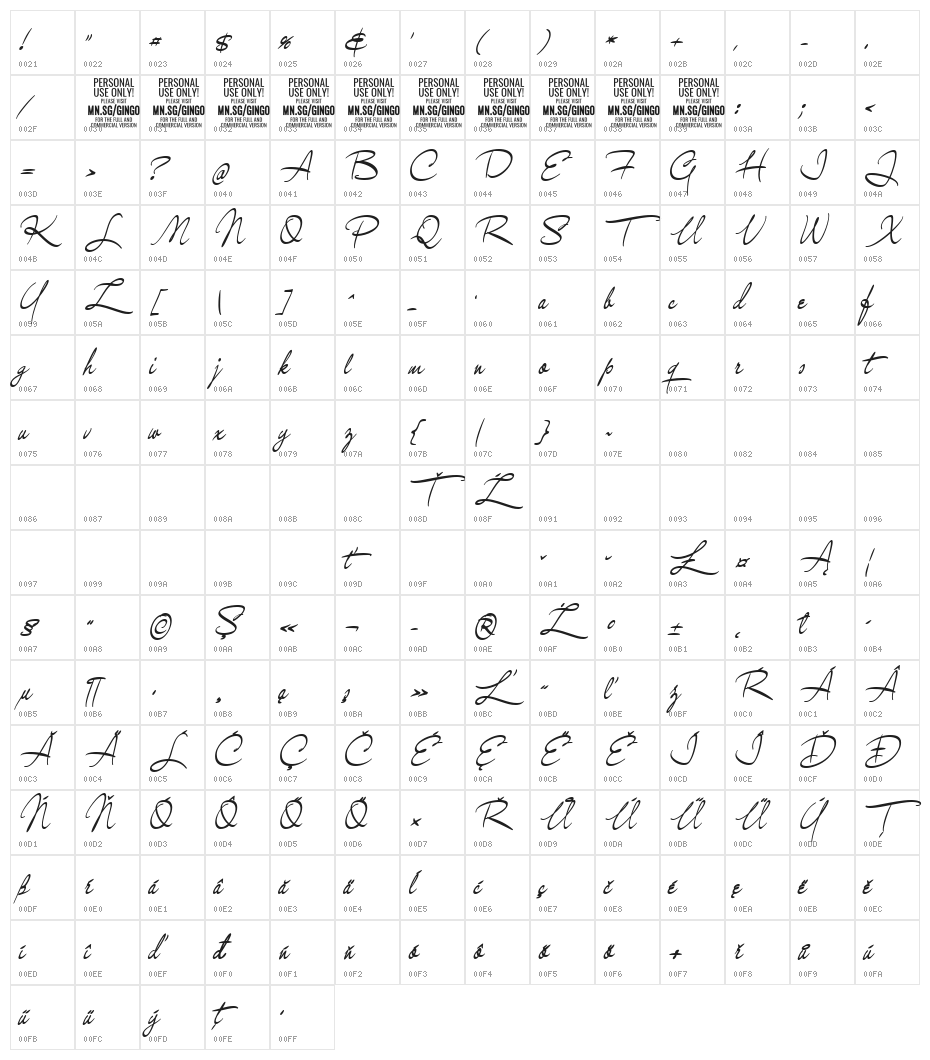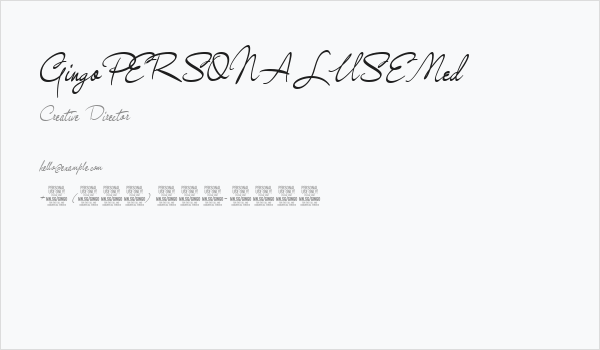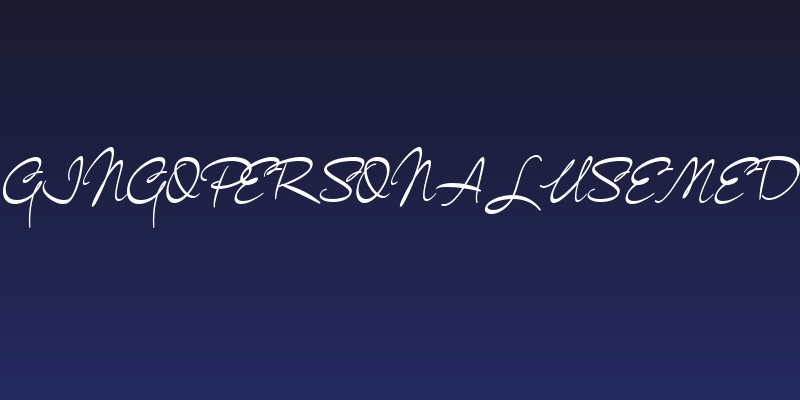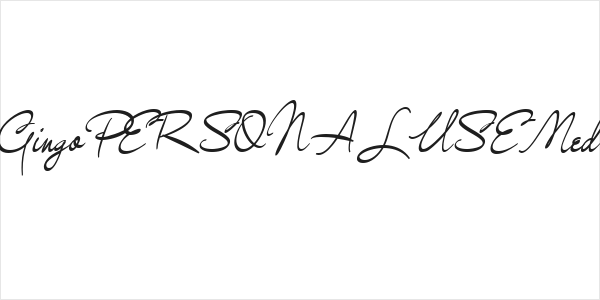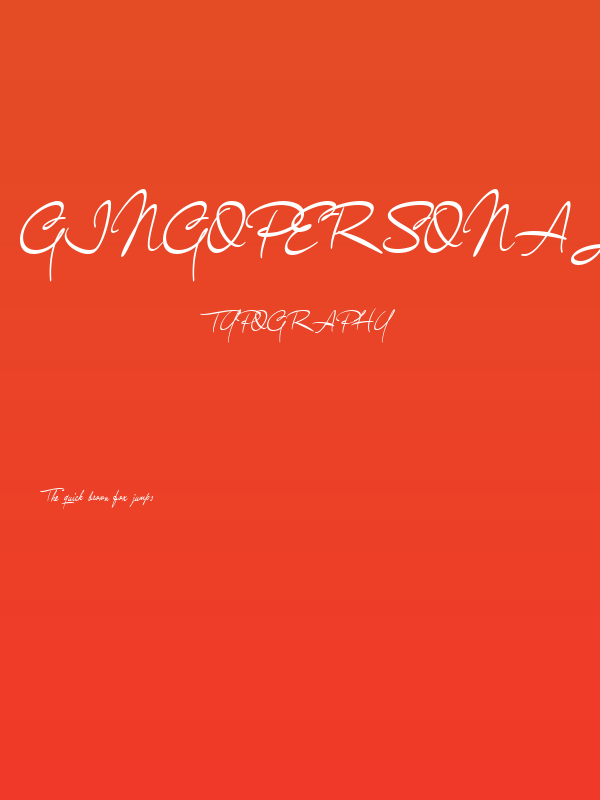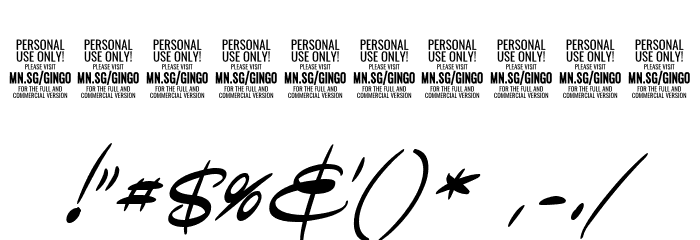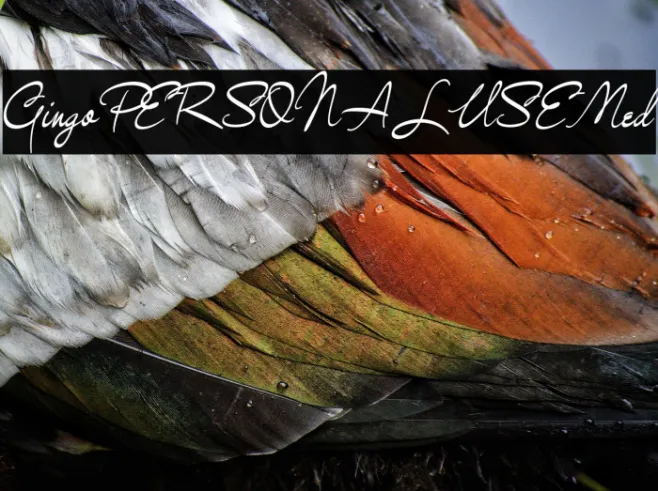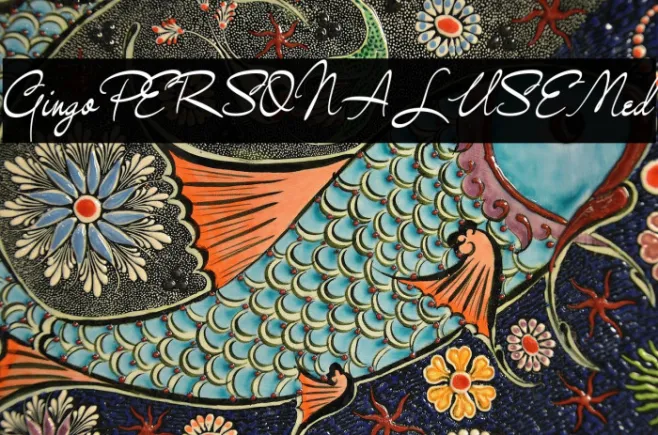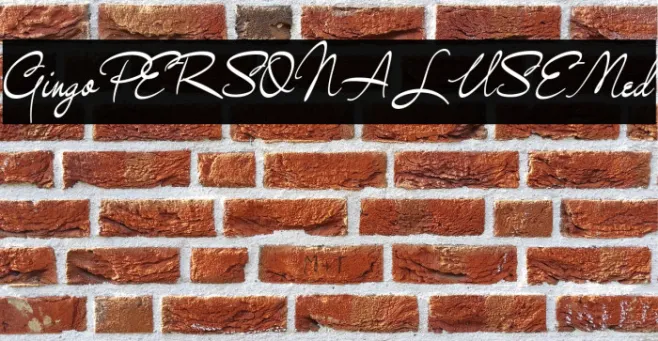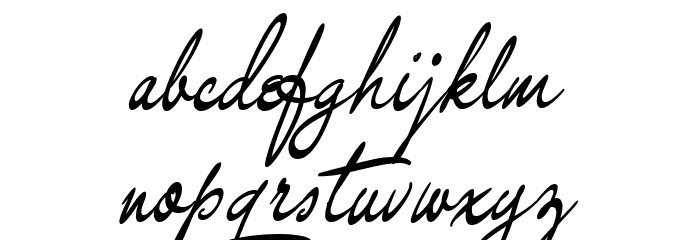
GingoPERSONALUSEMed Font
GingoPERSONALUSEMed Description
This font exhibits a flowing, cursive style that mimics elegant handwriting. The uppercase letters are tall and slightly slanted, with graceful loops and curves that give a sense of fluidity and motion. The lowercase letters maintain this fluidity, with some letters featuring distinctive flourishes that enhance the handwritten feel. The characters are connected, creating a seamless and continuous line of text. The font includes a variety of special characters, maintaining the same cursive style, which adds versatility for creative projects. Its overall appearance is sophisticated and artistic, making it suitable for designs that require a personal touch.
| Use Case | Logos, Invitations, Artistic designs |
| Proposed Projects | Ideal for wedding invitations, greeting cards, personal branding, and artistic projects that require a handwritten touch. |